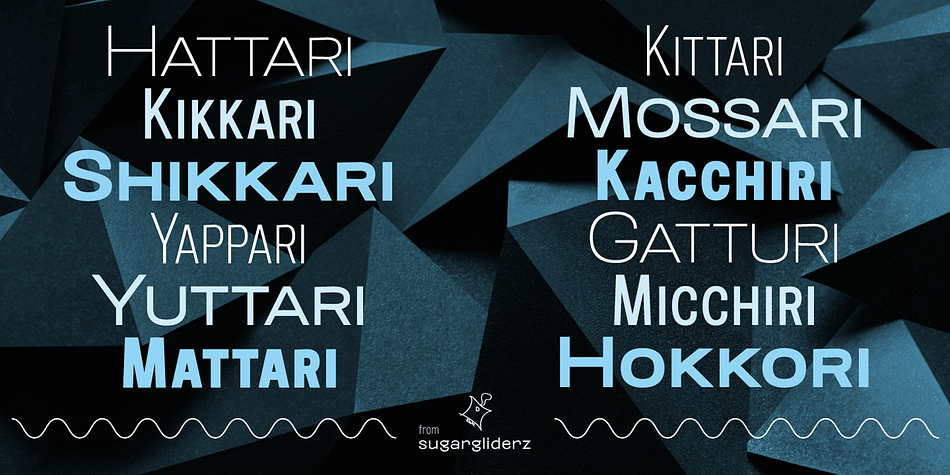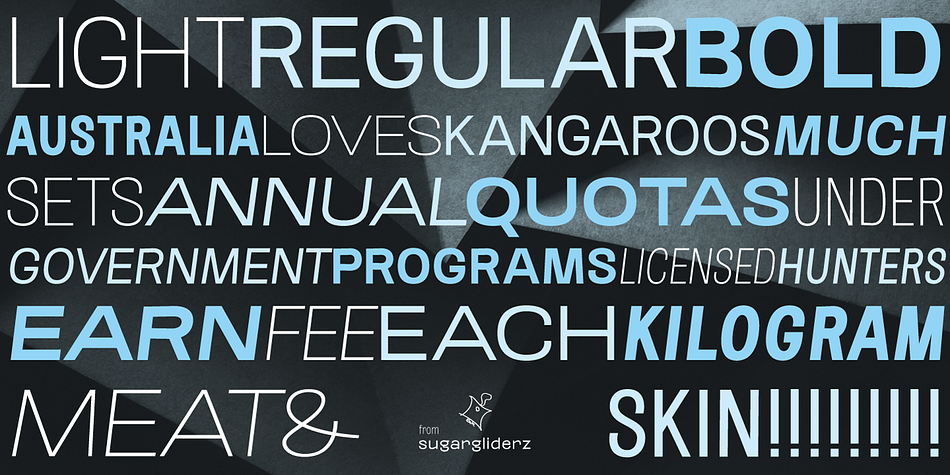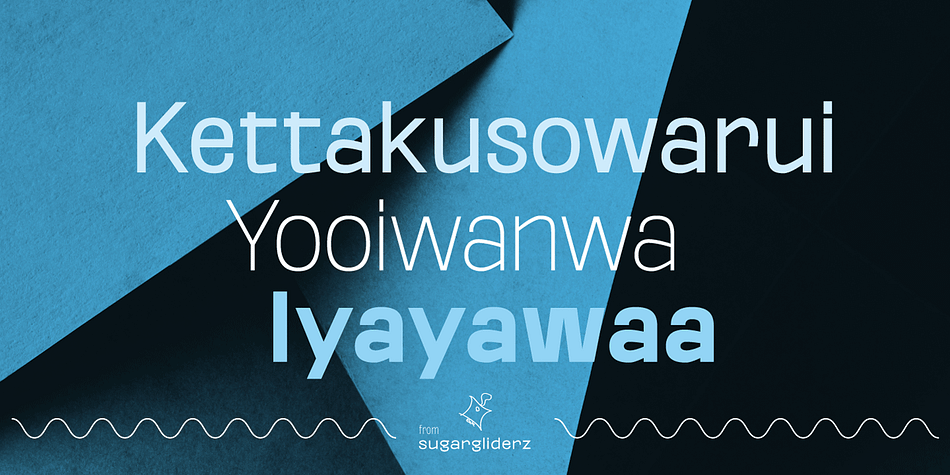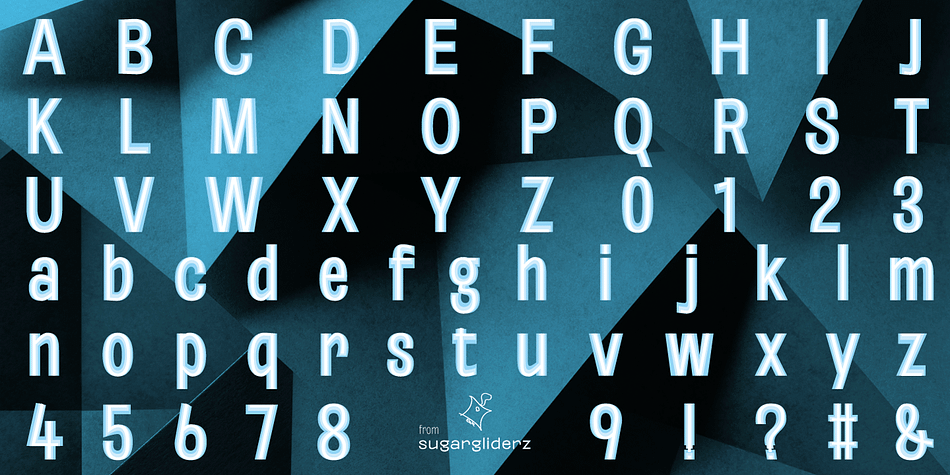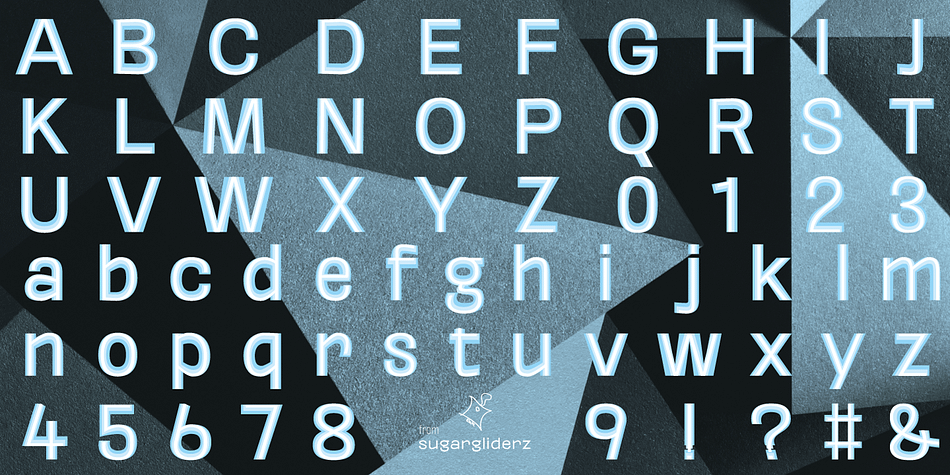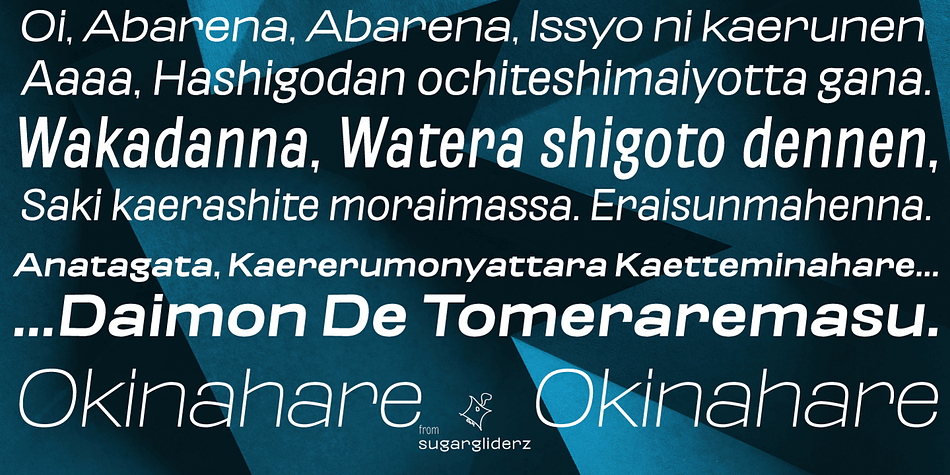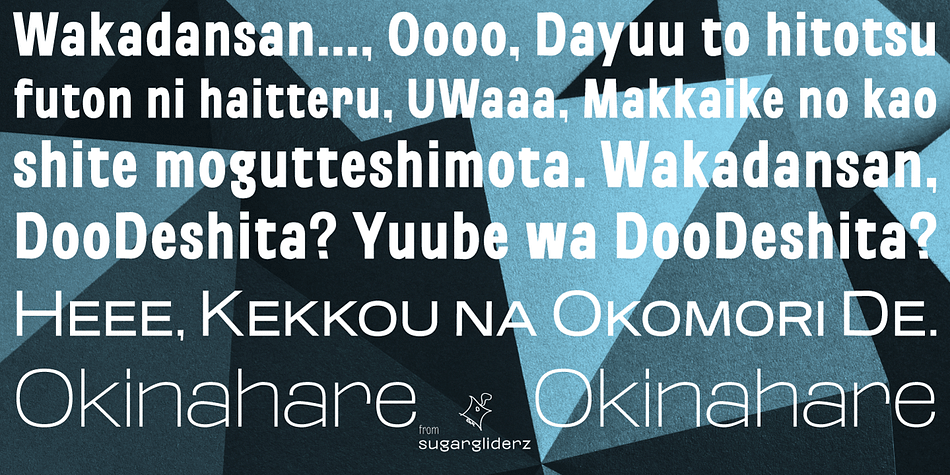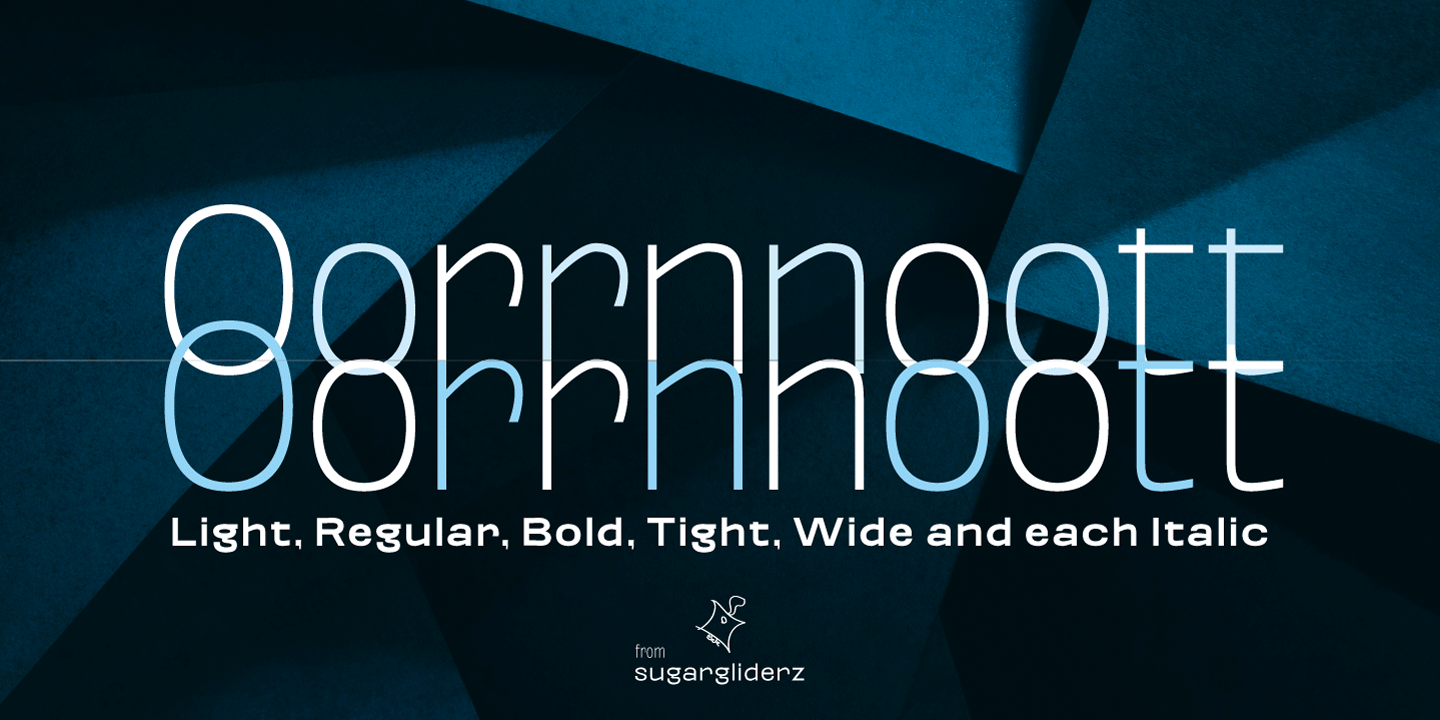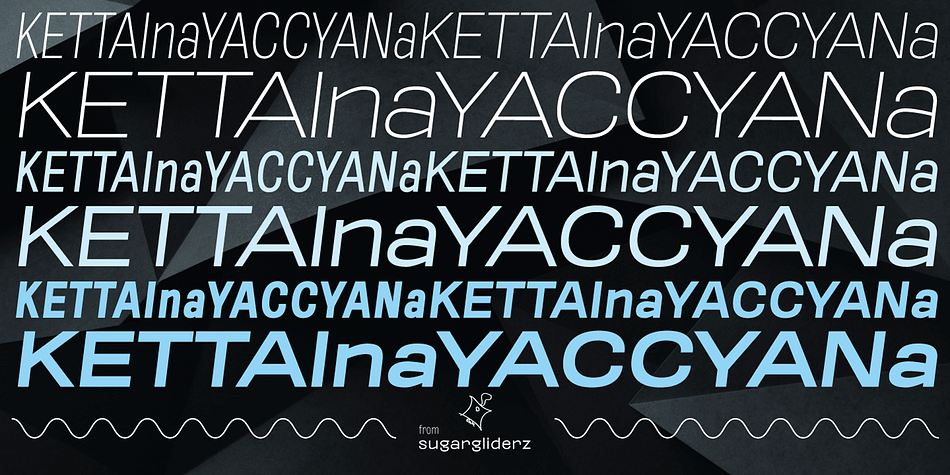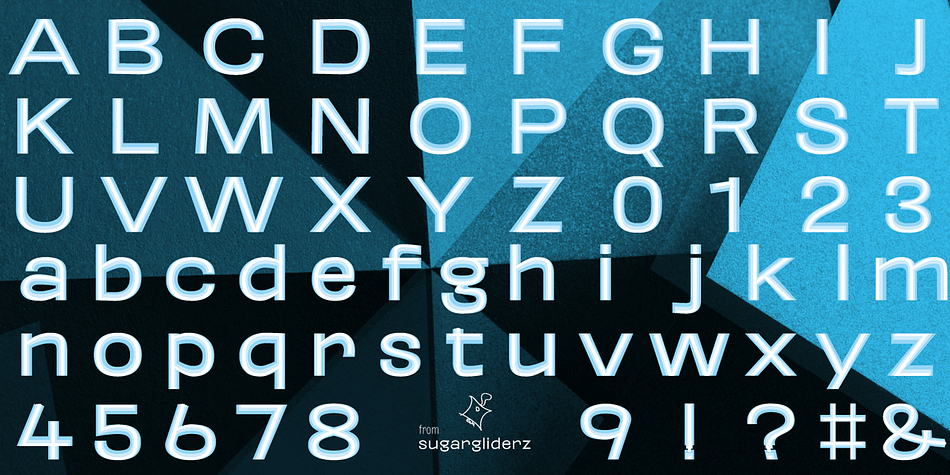
Oorrnnoott
Designed by Shuji Kikuchi, Oorrnnoott is a sans serif font family. This typeface has eighteen styles and was published by sugargliderz.
This is a series that takes unfinished typefaces that were either previously ideated but not realized or were close to completion but left incomplete due to dissatisfaction with certain aspects, and brings them to completion.
“Oorrnnoott” was originally a project named “Petitgothiquemignon” or “Sangoth”. In the process of refining “Kropotokin”, several ideas were incorporated into the design.
Well, I say “incorporated,” but it was designed on a whim, as usual. After all, it was started around 2005, and I don’t usually leave notes or anything (which isn’t the best habit), so I don’t remember the emotions or thoughts behind its creation.
Please consider this typeface as a very typical sans-serif font, as that is what I was aiming for when I excavated it this time. Please use it for body text, headlines, eye-catching designs, or whatever you like.